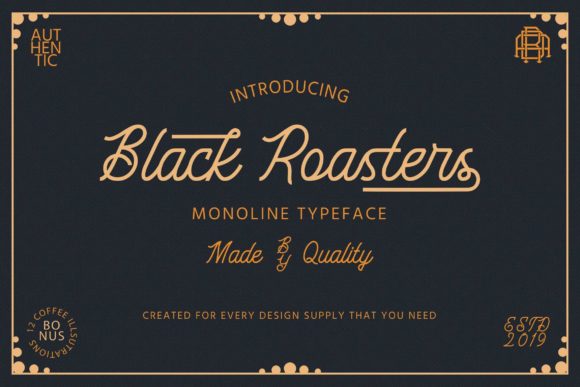
**Black Roasters: Ignite Your Designs with Vintage Flair**
Immerse yourself in the captivating world of Black Roasters, an extraordinary script font that emanates the nostalgic charm of yesteryear. This exquisite typeface, meticulously crafted by the visionary Adriansyah, is a symphony of elegance and boldness, ready to transform your creative endeavors into unforgettable masterpieces.
Black Roasters' captivating curves dance across the page like a playful yet sophisticated brushstroke. Its vintage aesthetic evokes the golden era of signwriting, injecting a timeless allure into your designs. Each letterform is a work of art, meticulously rendered to convey a sense of authenticity and warmth.
Whether you're crafting enchanting invitations, designing captivating logos, or creating heartfelt social media campaigns, Black Roasters is your trusted companion. Its versatility extends beyond aesthetics, seamlessly adapting to a myriad of design styles and applications.
Indulge in the pure joy of customization with Black Roasters. Experiment with its countless possibilities, from delicate flourishes to bold and eye-catching headlines. Let your imagination soar as you craft designs that resonate with vintage flair and modern elegance.